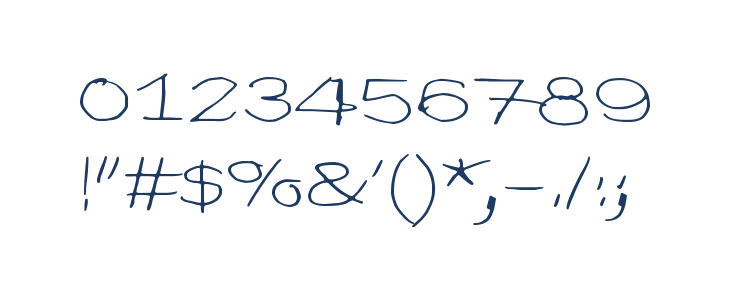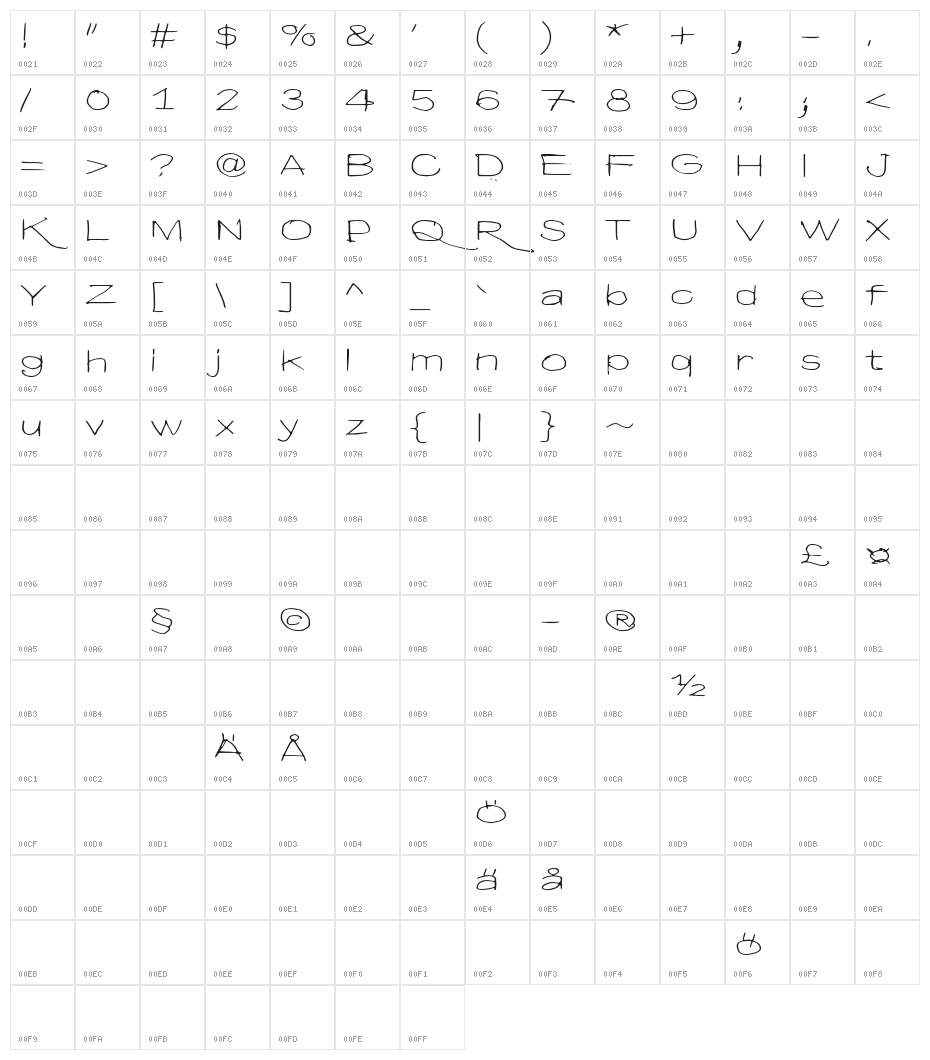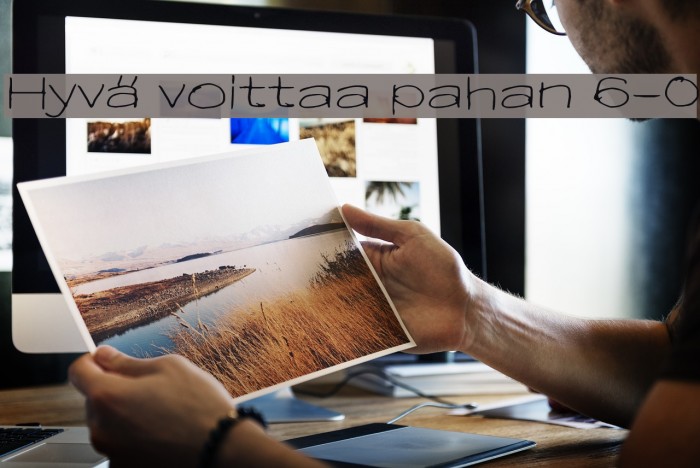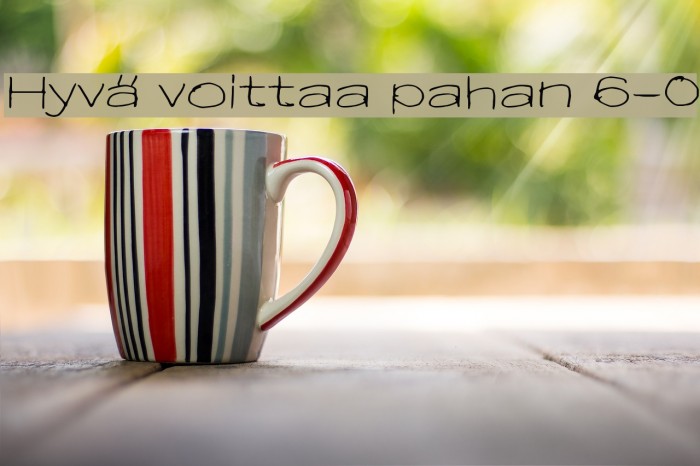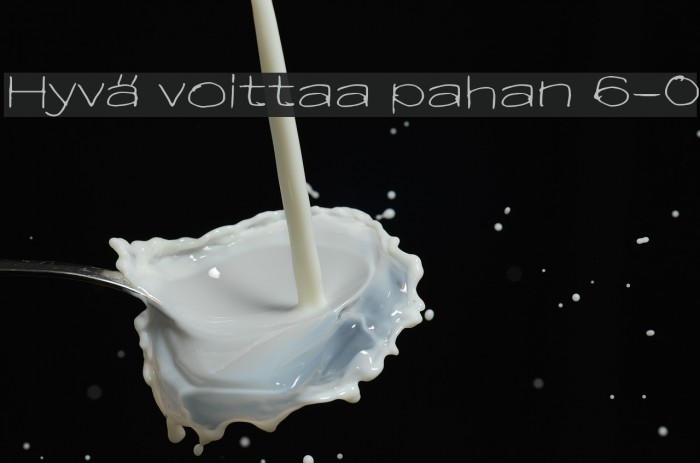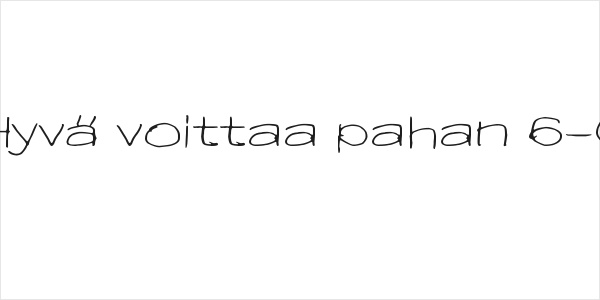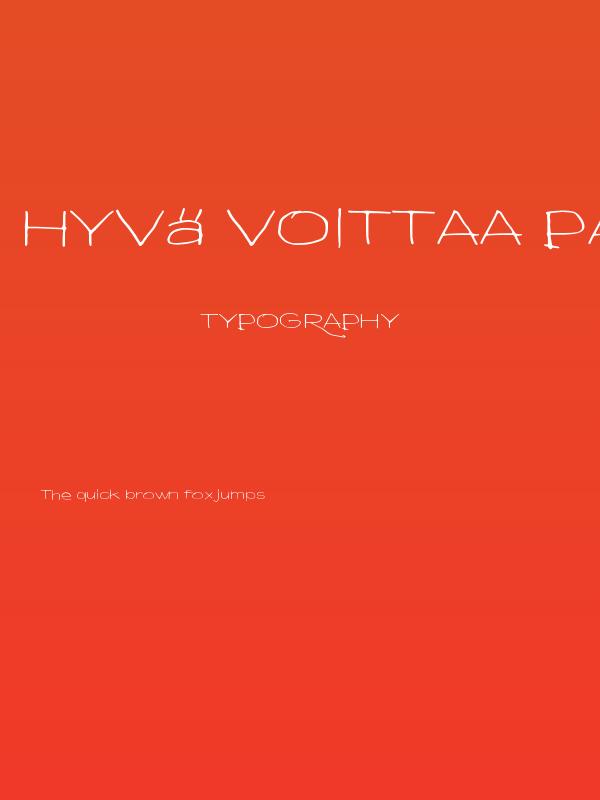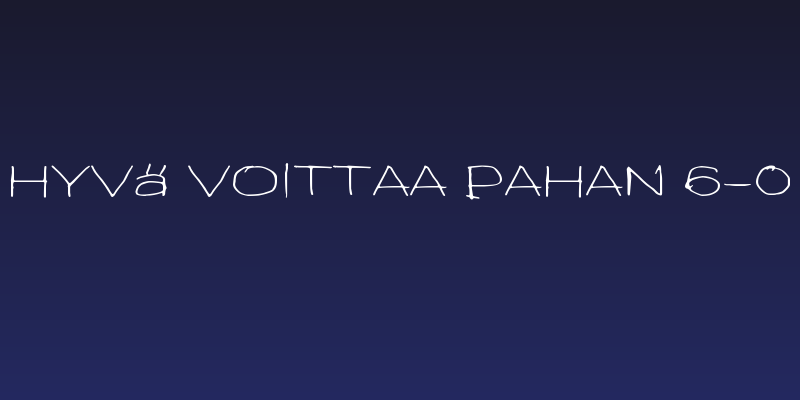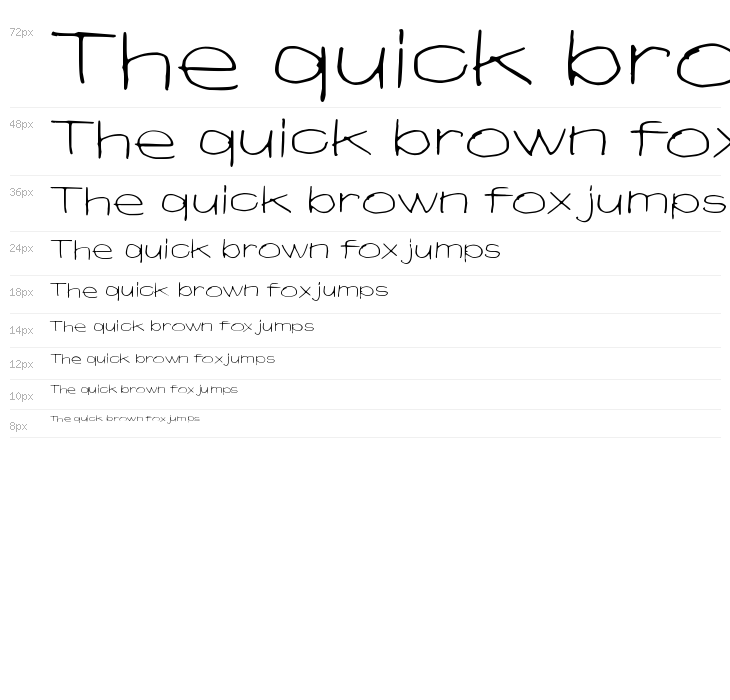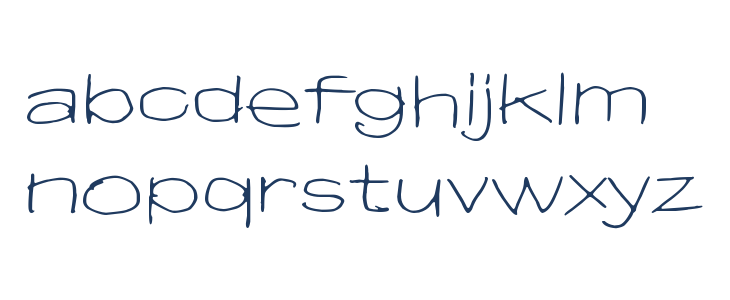
Hyvä voittaa pahan 6-0 Font
Hyvä voittaa pahan 6-0 Description
This font features a playful and whimsical design, characterized by its hand-drawn appearance. The letters have a casual, slightly uneven stroke that gives them a lively and dynamic feel. The uppercase and lowercase letters maintain a consistent style, with rounded edges and a slight tilt that adds to the informal aesthetic. The numerals and special characters follow the same design principles, ensuring a cohesive look across all glyphs. The font's unique charm makes it suitable for projects that require a touch of creativity and personality.
| Proposed Projects | Ideal for children's books, creative posters, greeting cards, and playful branding. |